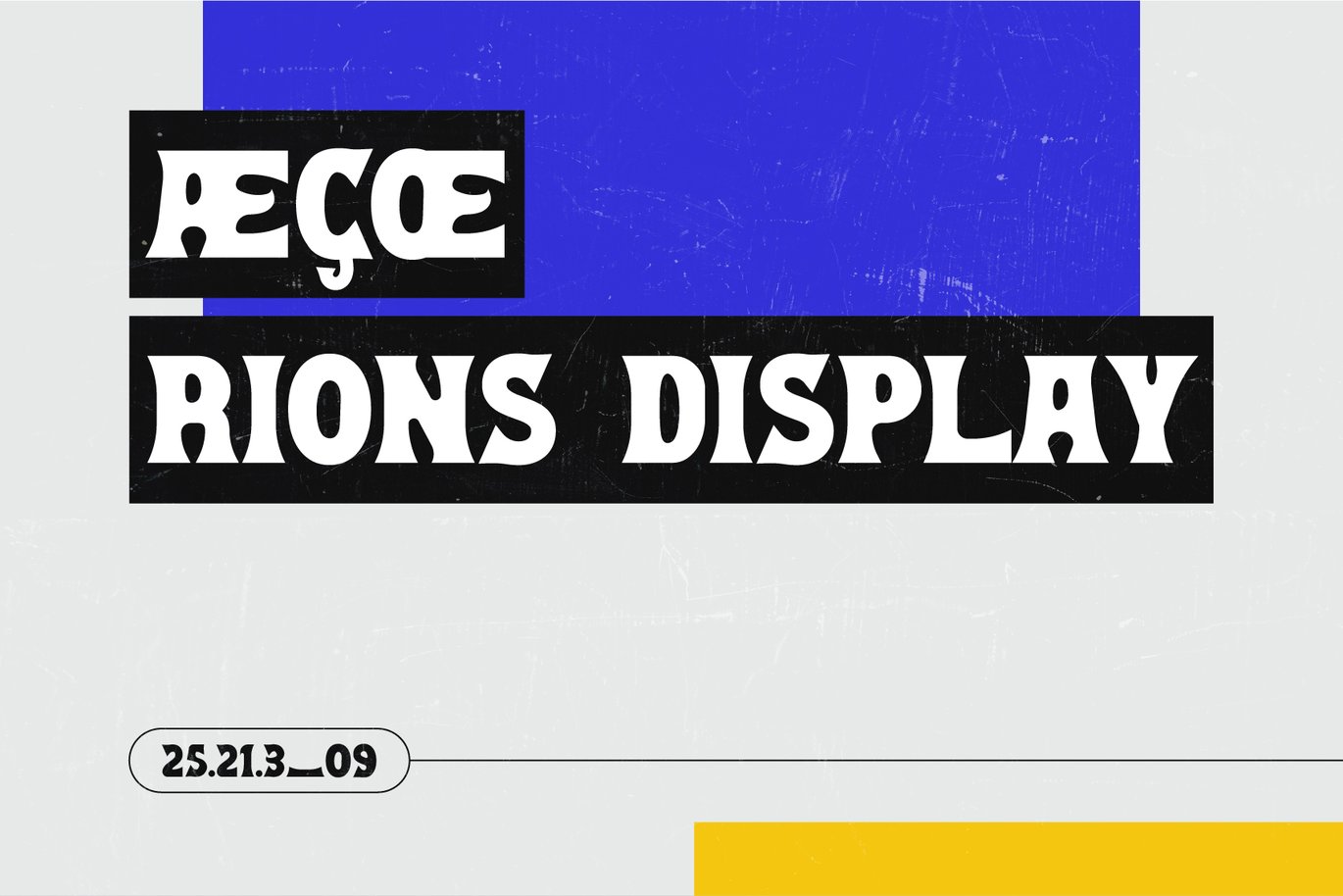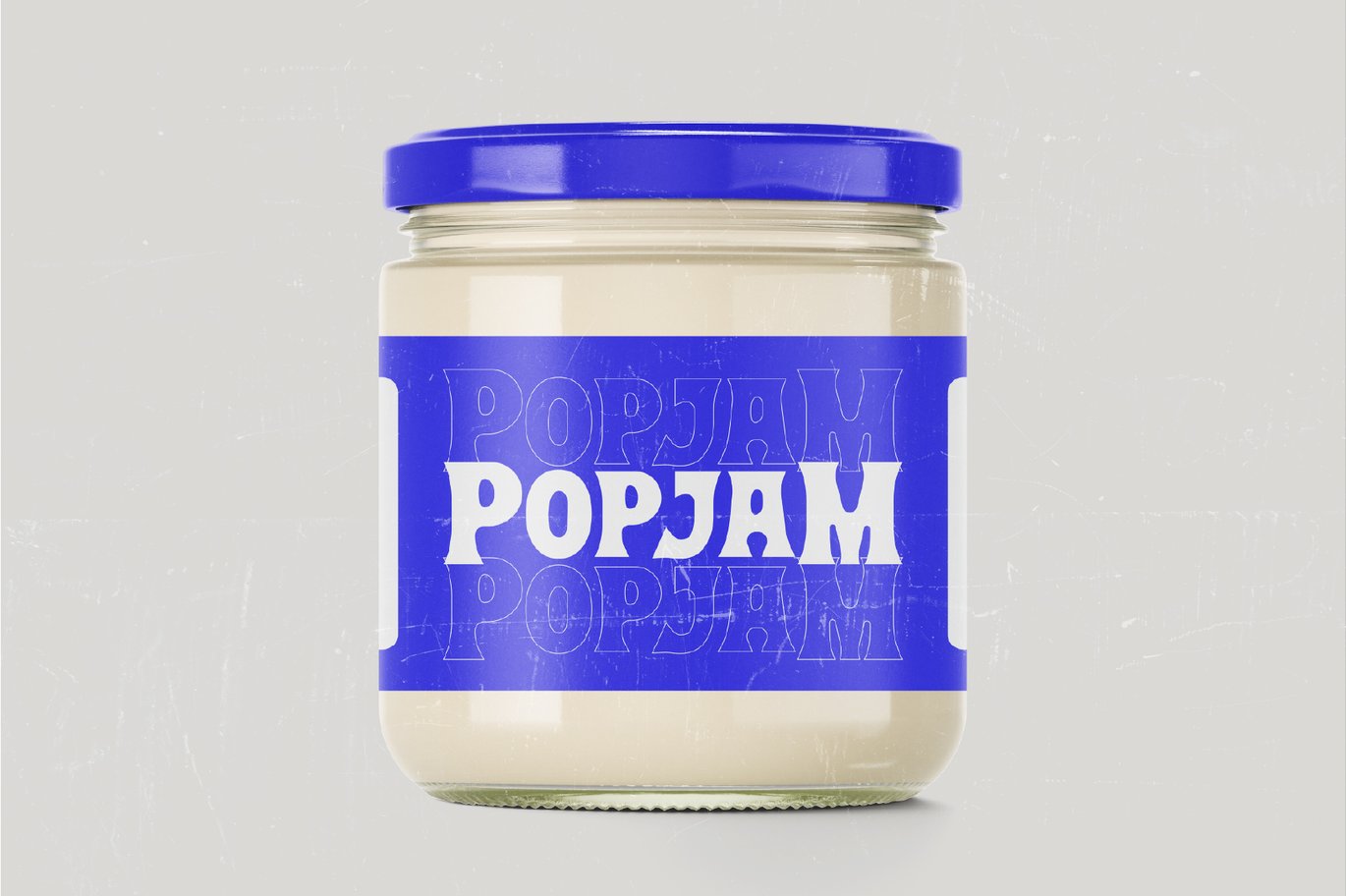
Rions Bold Display Typeface – ZD Font
Rions is chunky. The strokes are thick and slightly flared, the serifs are short and soft, and the letters sit close together, so words feel solid, like the “Popjam” label on the jam jar in the specimen. Its designer, Zhafran Dzikra, sells it under the name simetro.
Best uses for Rions
• Food and drink packaging
• Retro posters and flyers
• Shop signs and logos
• Book and record covers
• Bold social media headlines
Rions is heavy, so give it some light around it. DM Sans keeps small print clean. Space Grotesk adds a modern edge, close to the small numbers in the specimen. For a retro script accent, try Pacifico.
What free font is similar to Rions?
Alfa Slab One and Shrikhand are open-licence heavy display fonts. Young Serif is closer if you want a softer, rounder serif.
How do Rions small caps work?
Type in lowercase and Rions gives you smaller capitals. Mix them with full capitals for a classic sign-painted look.